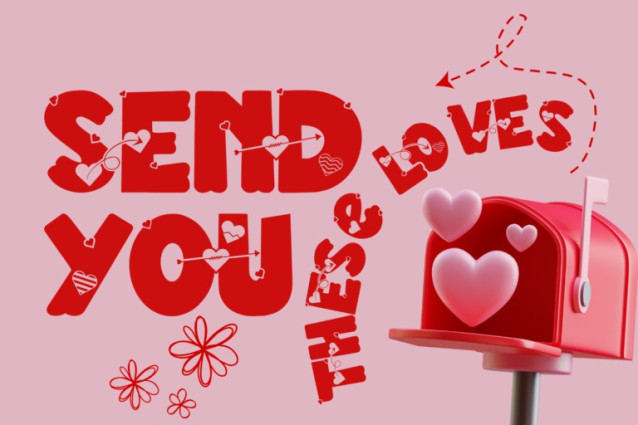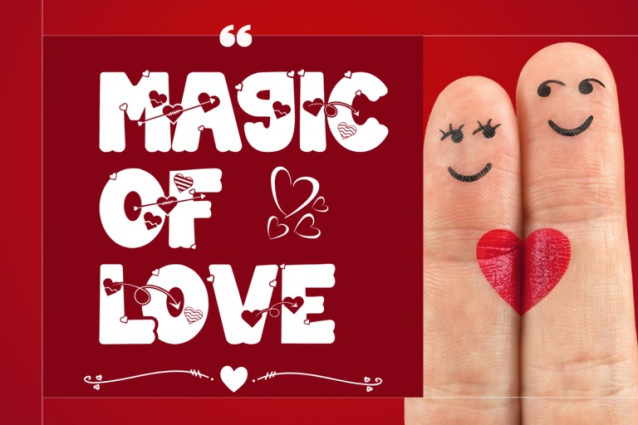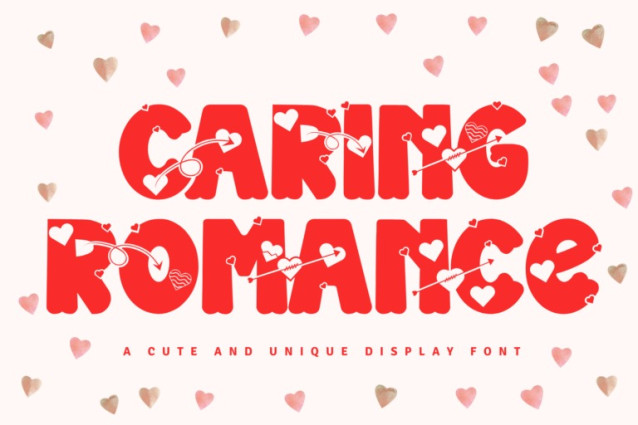
Caring Romance Font
Caring Romance – Lovely Font – A Lovely and Playful Display Font, a heartwarming and playful display font designed to spread joy and affection. With its bubbly letterforms, whimsical arrows, and heart-filled shapes, this typeface brings a delightful charm to every design. Each character is packed with lovely details — from pierced hearts to wavy love lines — making it the perfect choice for Valentine’s cards, wedding stationery, children’s books, stickers, merchandise, and more.
Uppercase & Lowercase Letters
100+ Fun and Decorative Ligatures
Themed elements like arrows, hearts, and love motifs
About 100 ligatures combined with Stylistic Alternates Font: